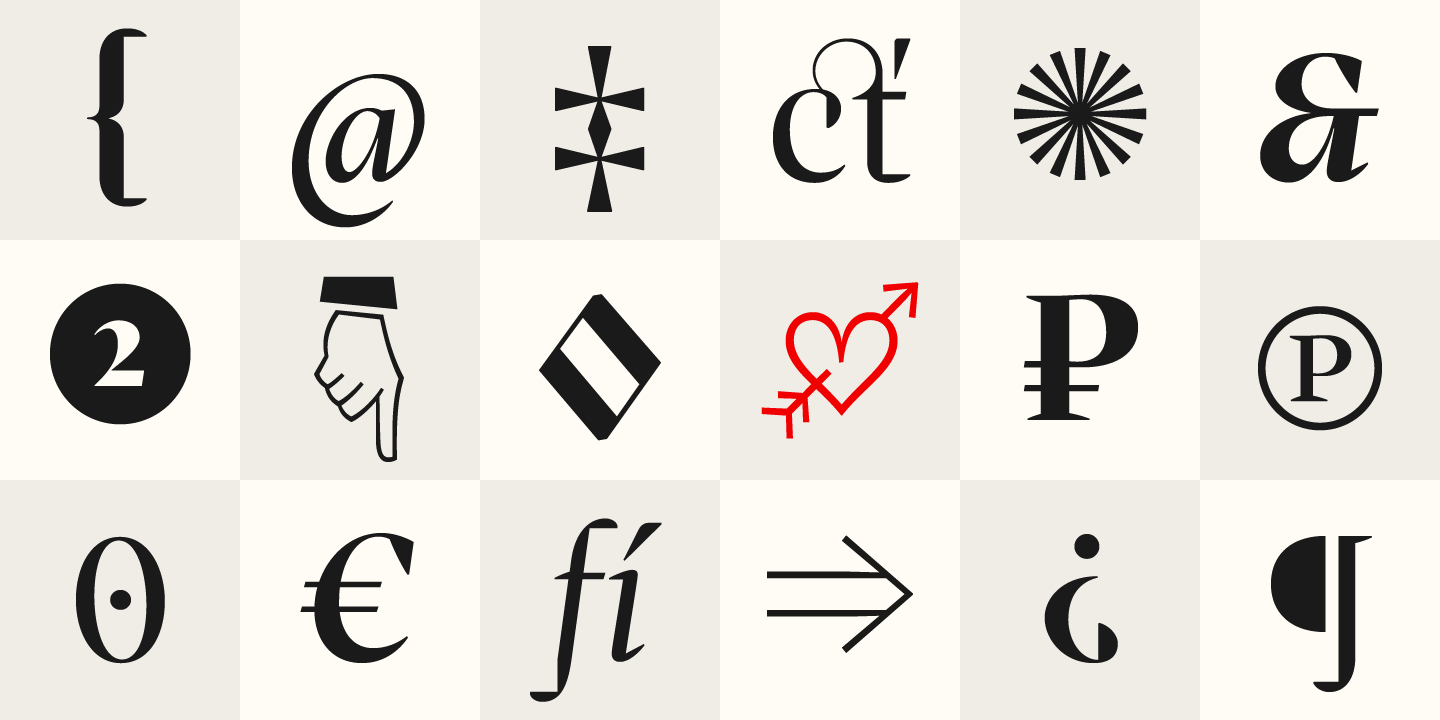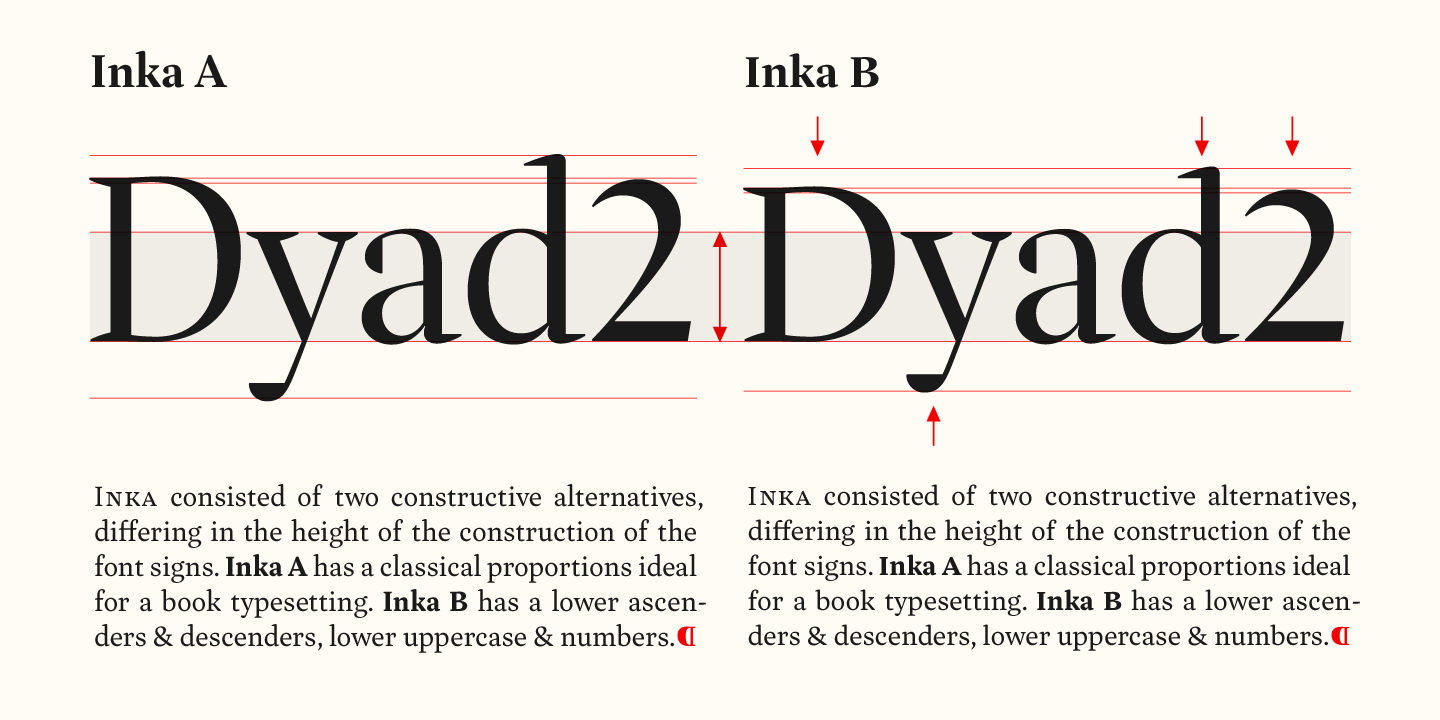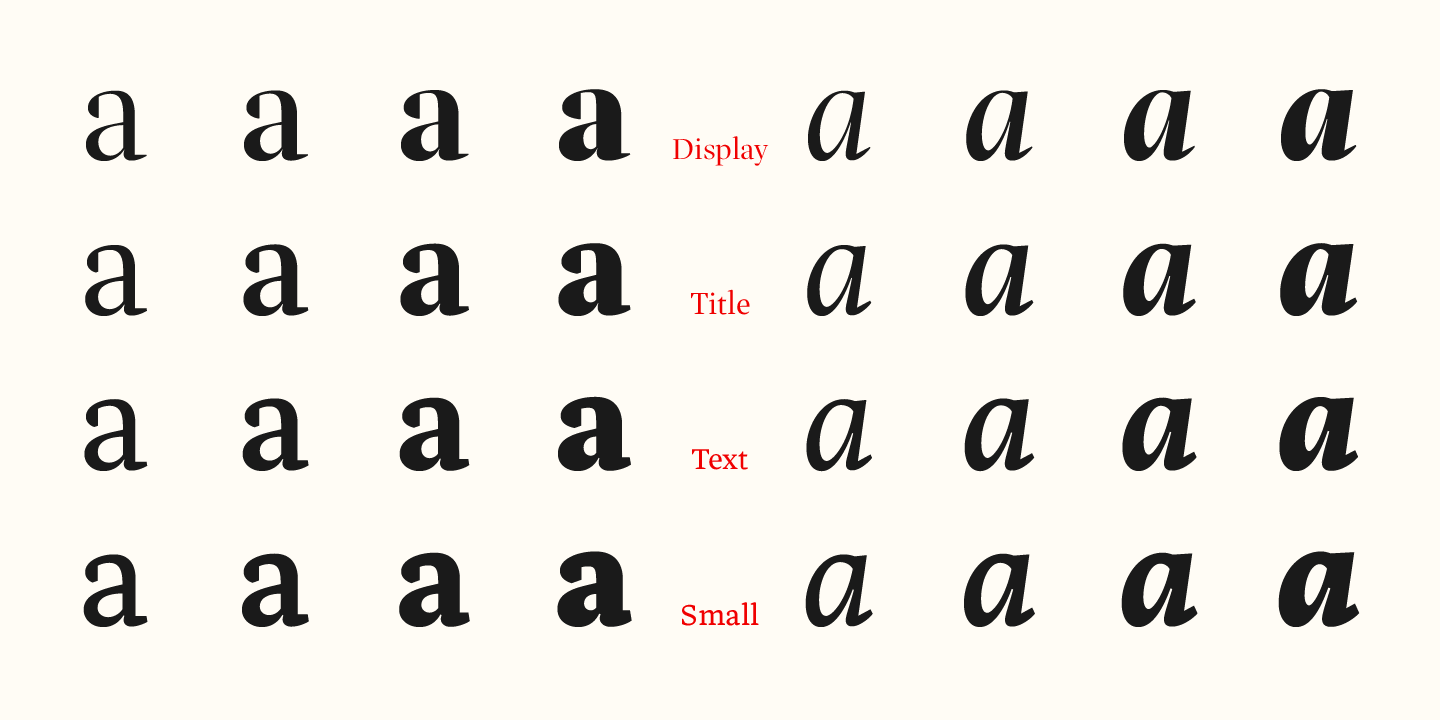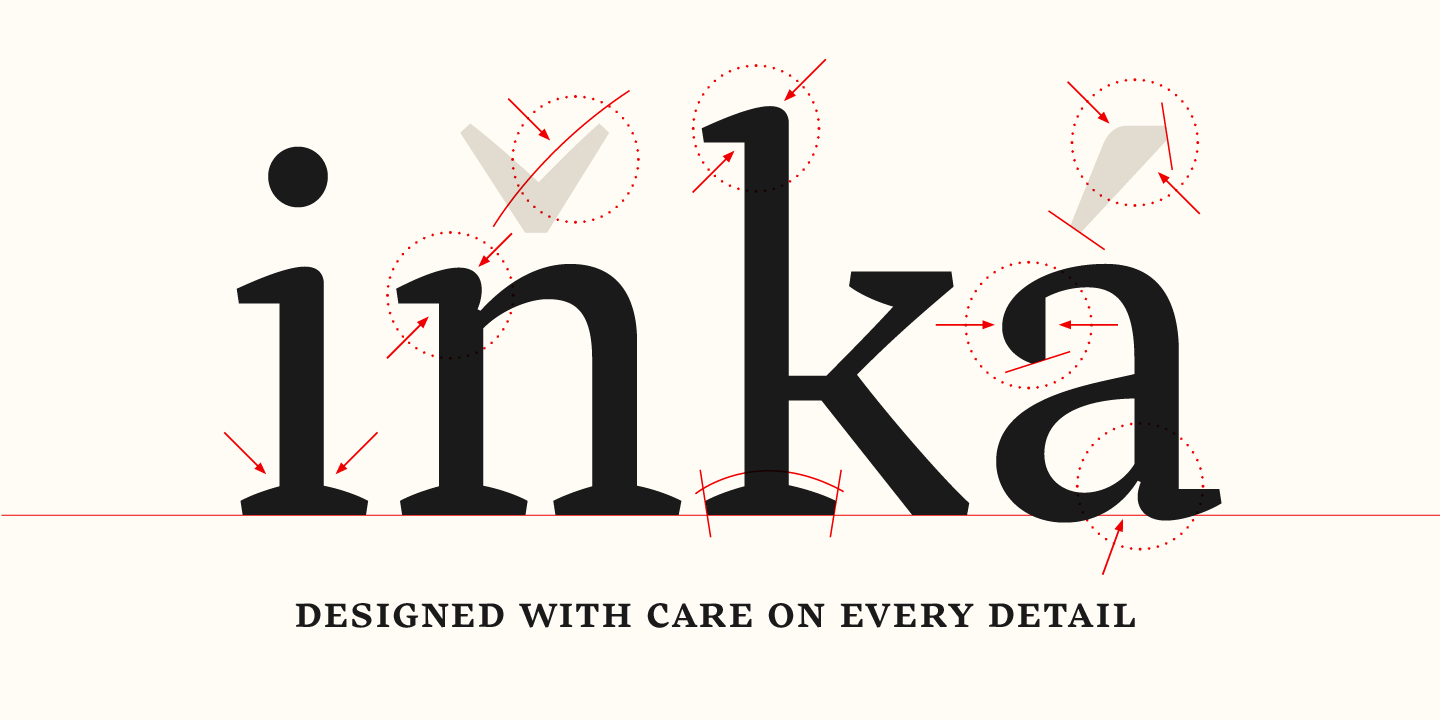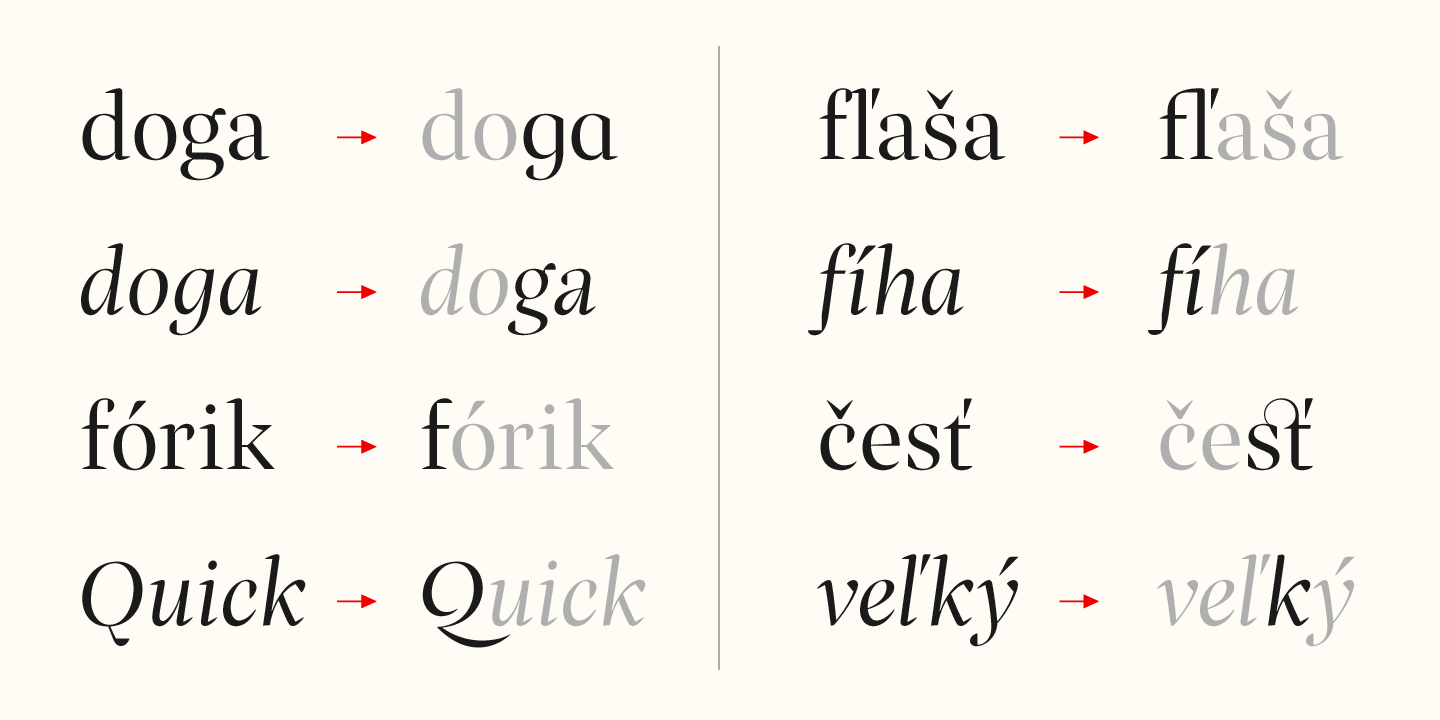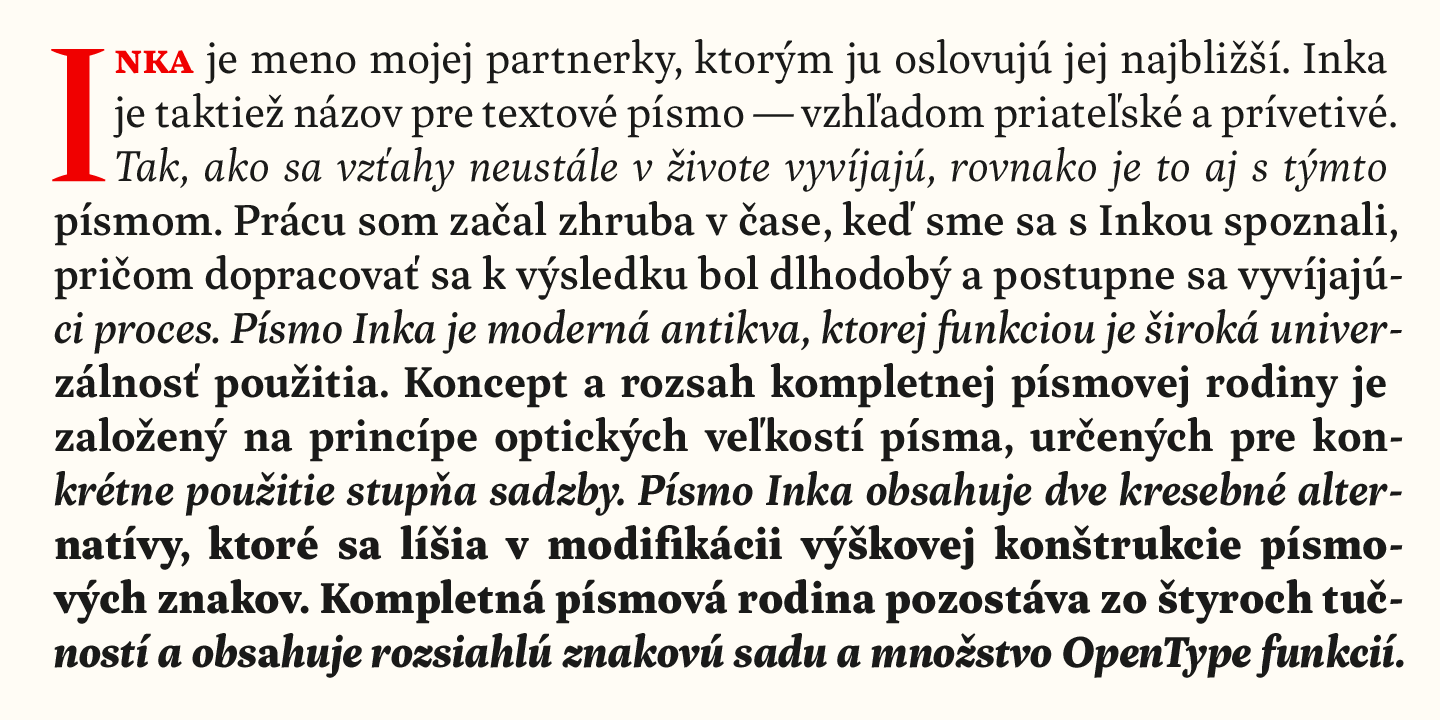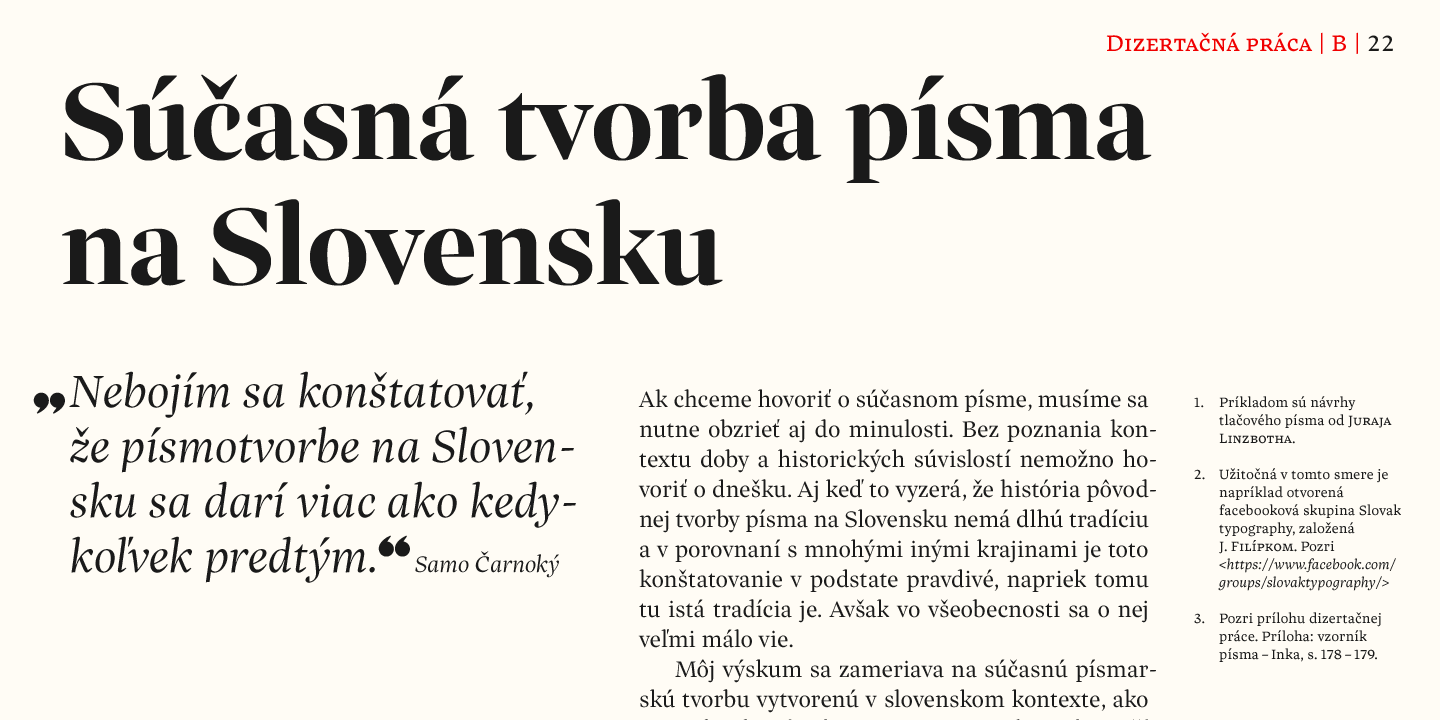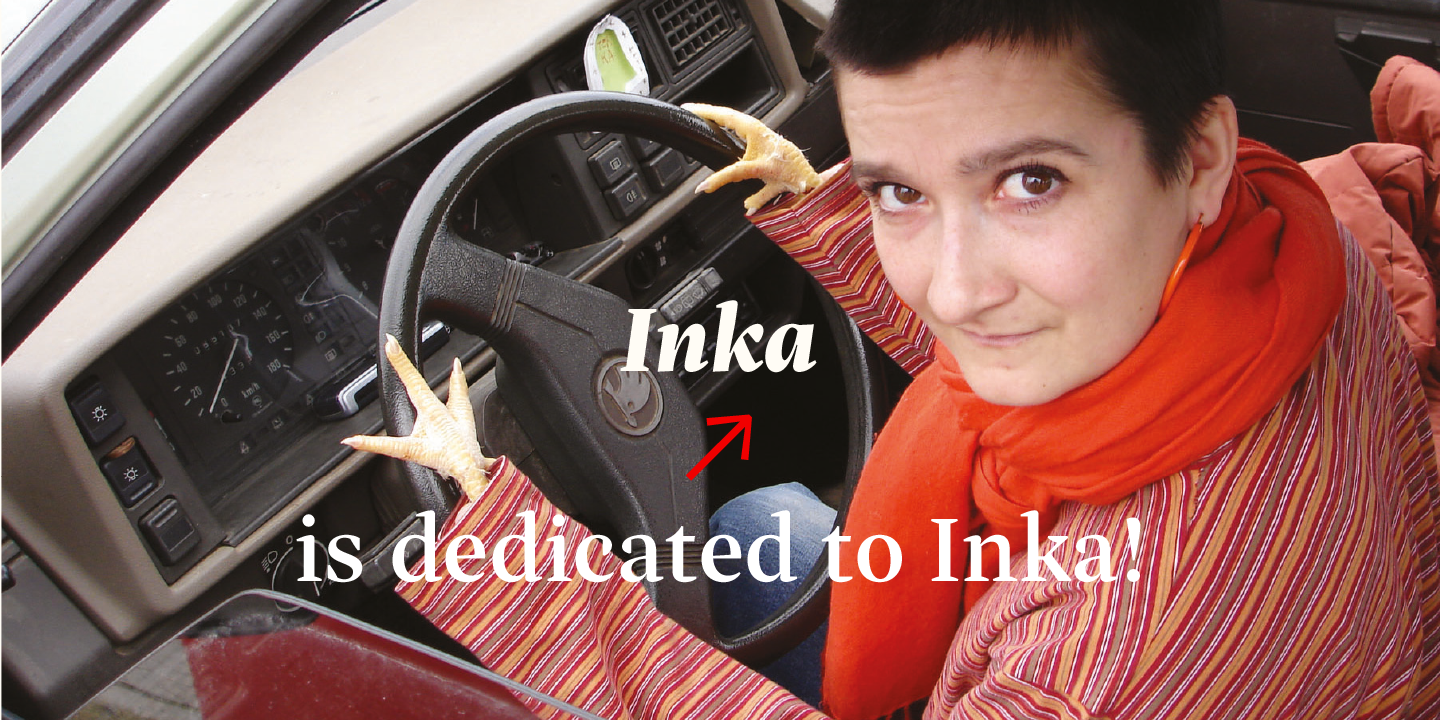
Inka is the name by which the closest-ones called my partner. Inka is also the name of a text typeface – in its form very friendly and welcoming. The same way as relationships develop through the life, text typefaces develop, too. I had started the work on this typeface about the same time as I met Inka, while reaching the final output has been a long and progressive process. Inka is a modern serif typeface with wide universality in functions (various editorial usages as books, magazines, annual reports…). The concept and the scope of the complete type family are based on the principle of optical sizes of the typeface designed for the particular use of the size of typesetting. Inka consists of several drawing variations for the typesetting of small sizes (Small), text typesetting (Text), larger typesetting sizes (Title), and headlines sizes (Display). Two constructive alternatives, differing in the height of the construction of the font signs, further extend the variability of the usage of the typeface. Inka A has classical proportions ideal for book typesetting. Inka B has lower ascenders and descenders, lower uppercase glyphs and numbers. Typeface with such construction allows us to use the typesetting efficiently while using tighter leading and still looking more contemporary. Each of the font set (Display, Title, Text, Small) consists of four weights (Regular, Medium, Bold, Black), each has wide character set and a lot of OpenType features. “Inka is dedicated to Inka.”